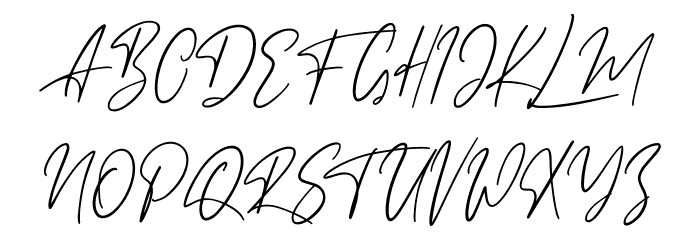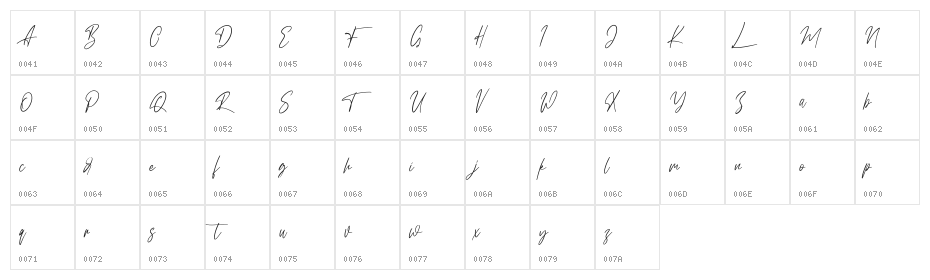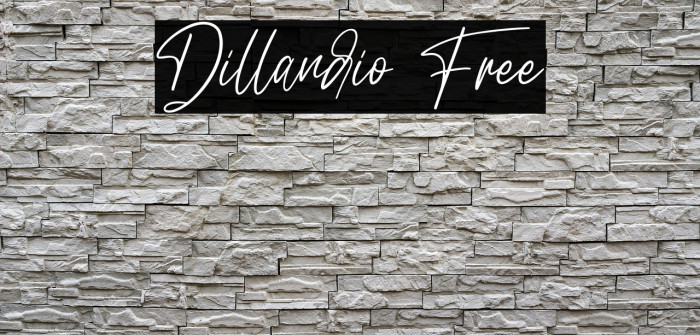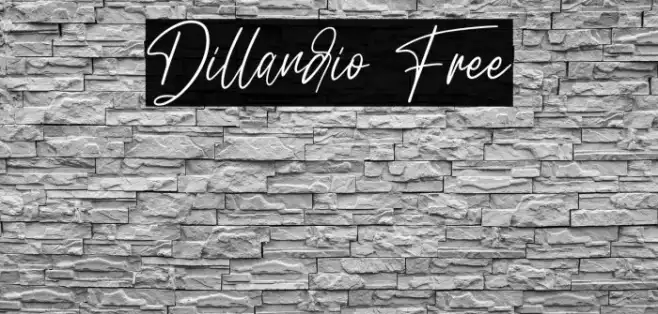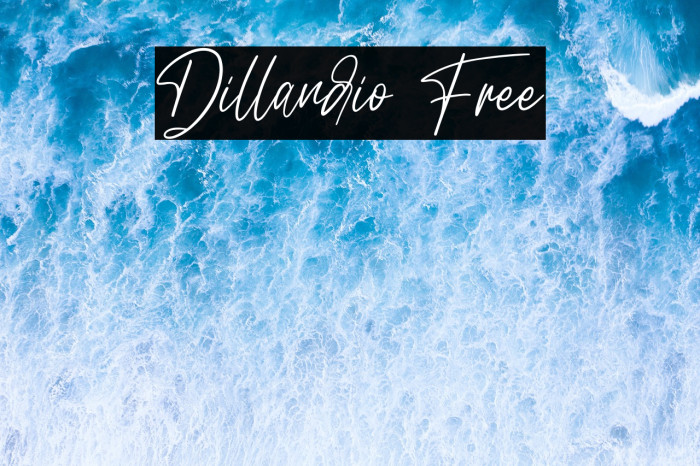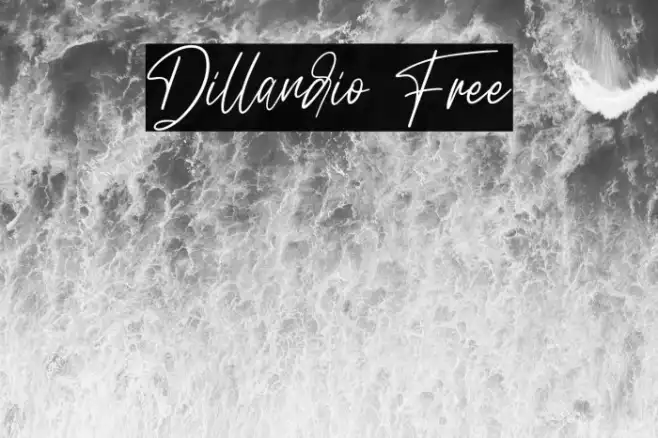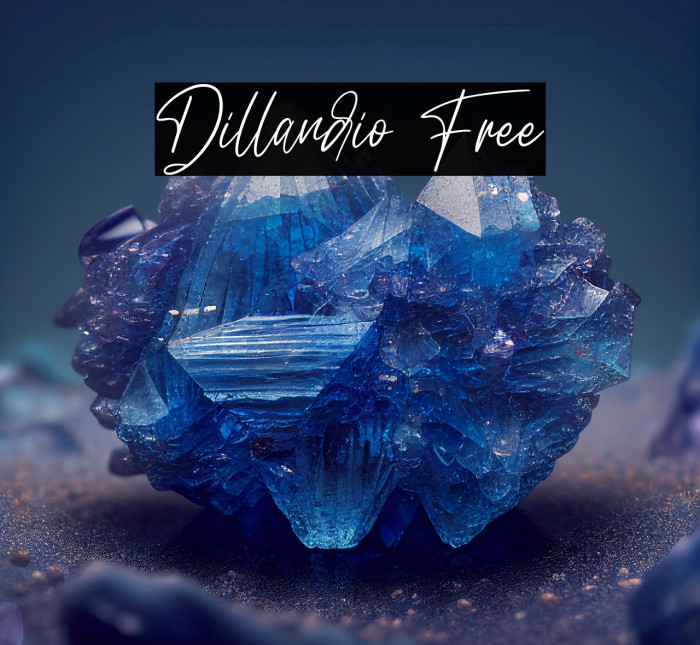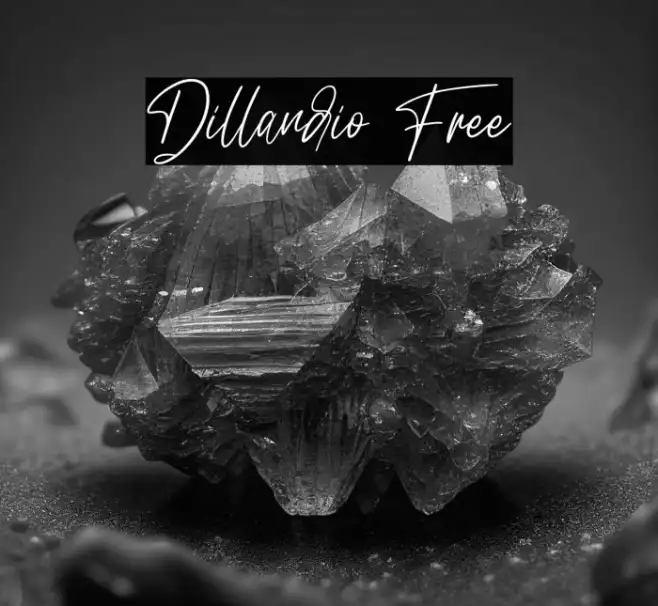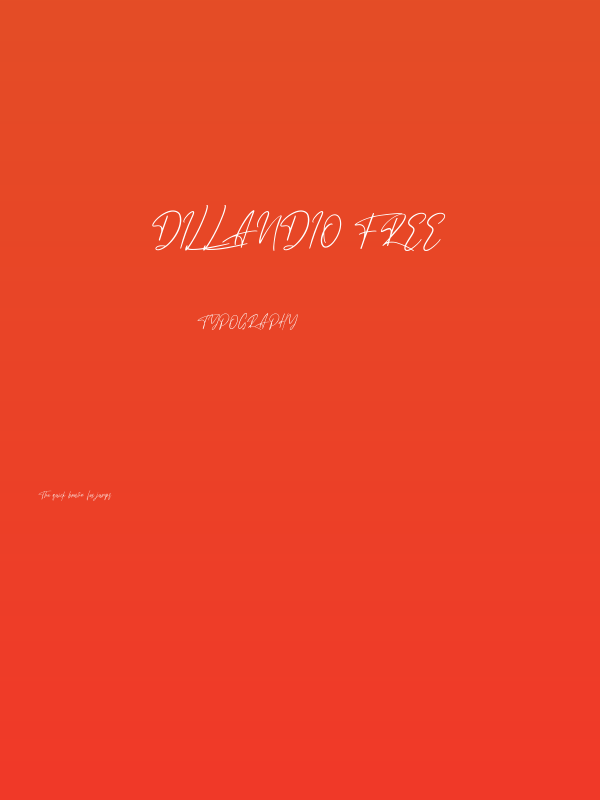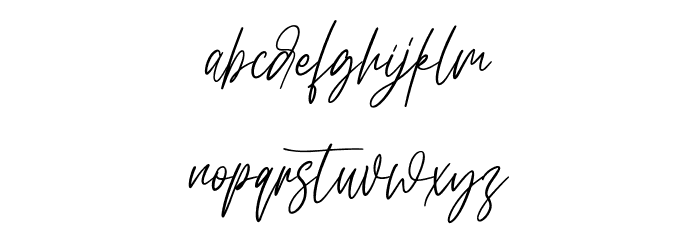
Dillandio Free Font
Dillandio Free Description
This font features an elegant, flowing script style that emulates the fluidity of natural handwriting. The characters are connected with smooth, sweeping strokes, giving it a sophisticated and artistic appearance. The uppercase letters are bold and prominent, while the lowercase letters maintain a consistent flow, enhancing readability. The font's design is both modern and timeless, making it suitable for a variety of creative projects. Its unique style is perfect for adding a personal touch to any design, with a graceful and refined aesthetic.